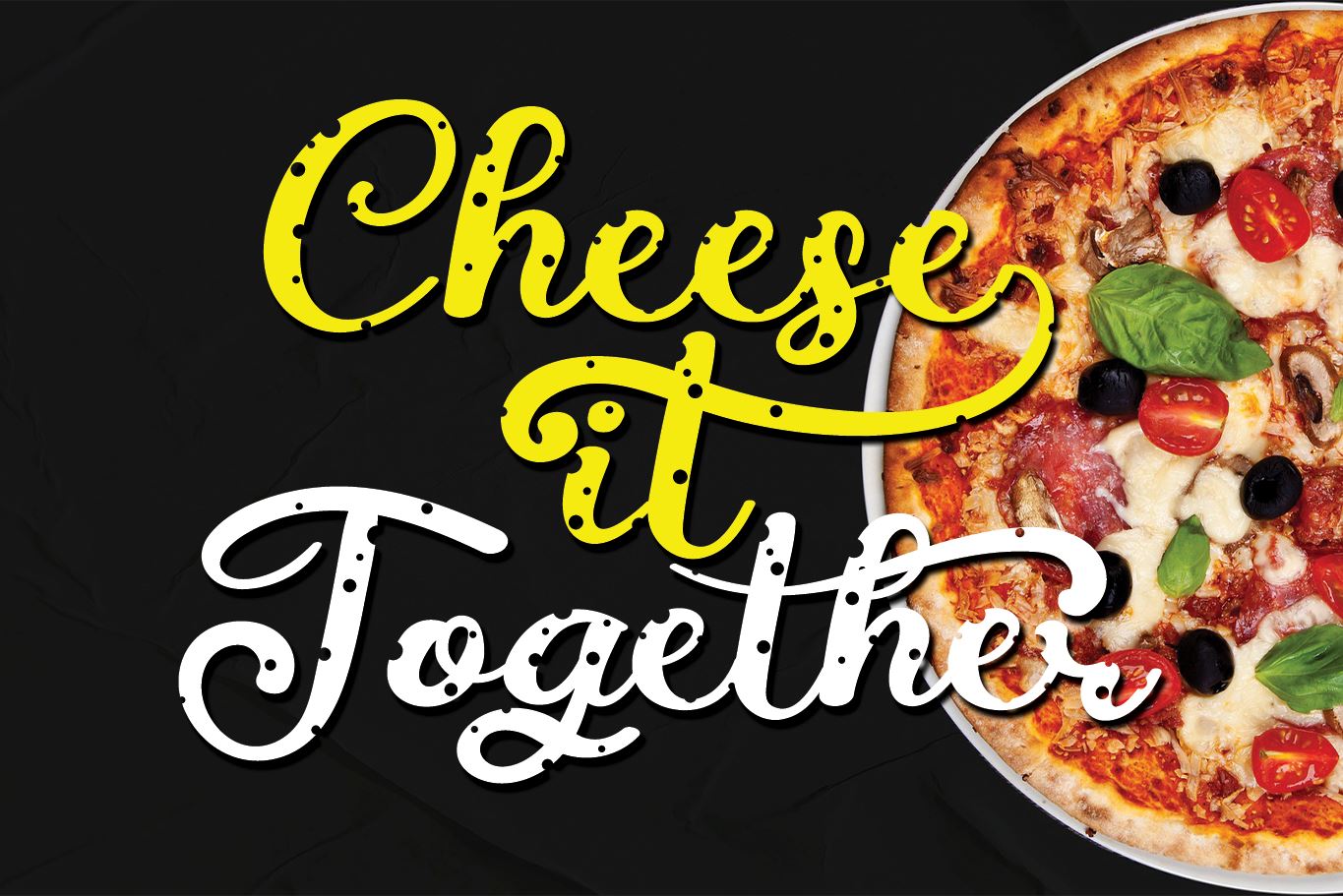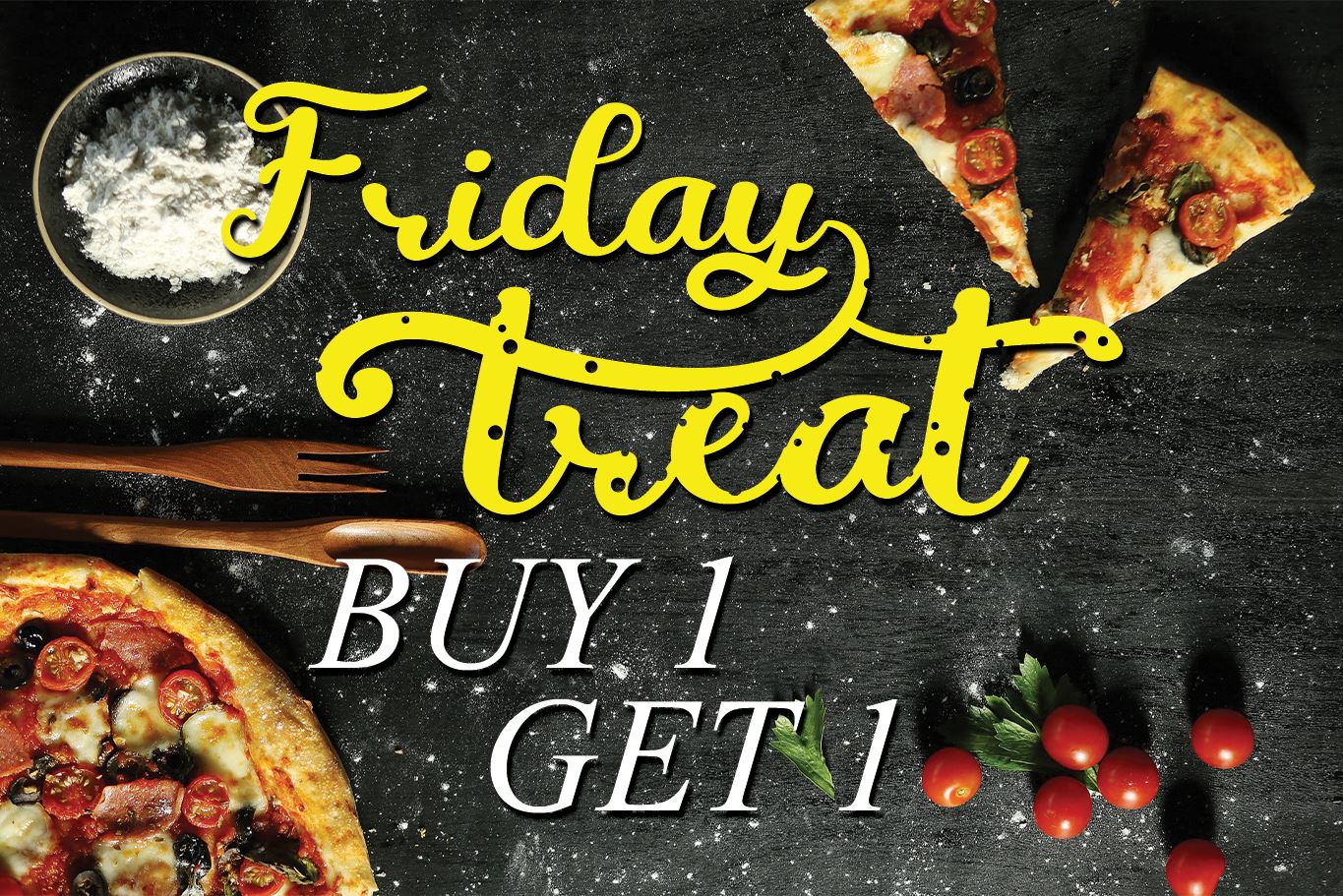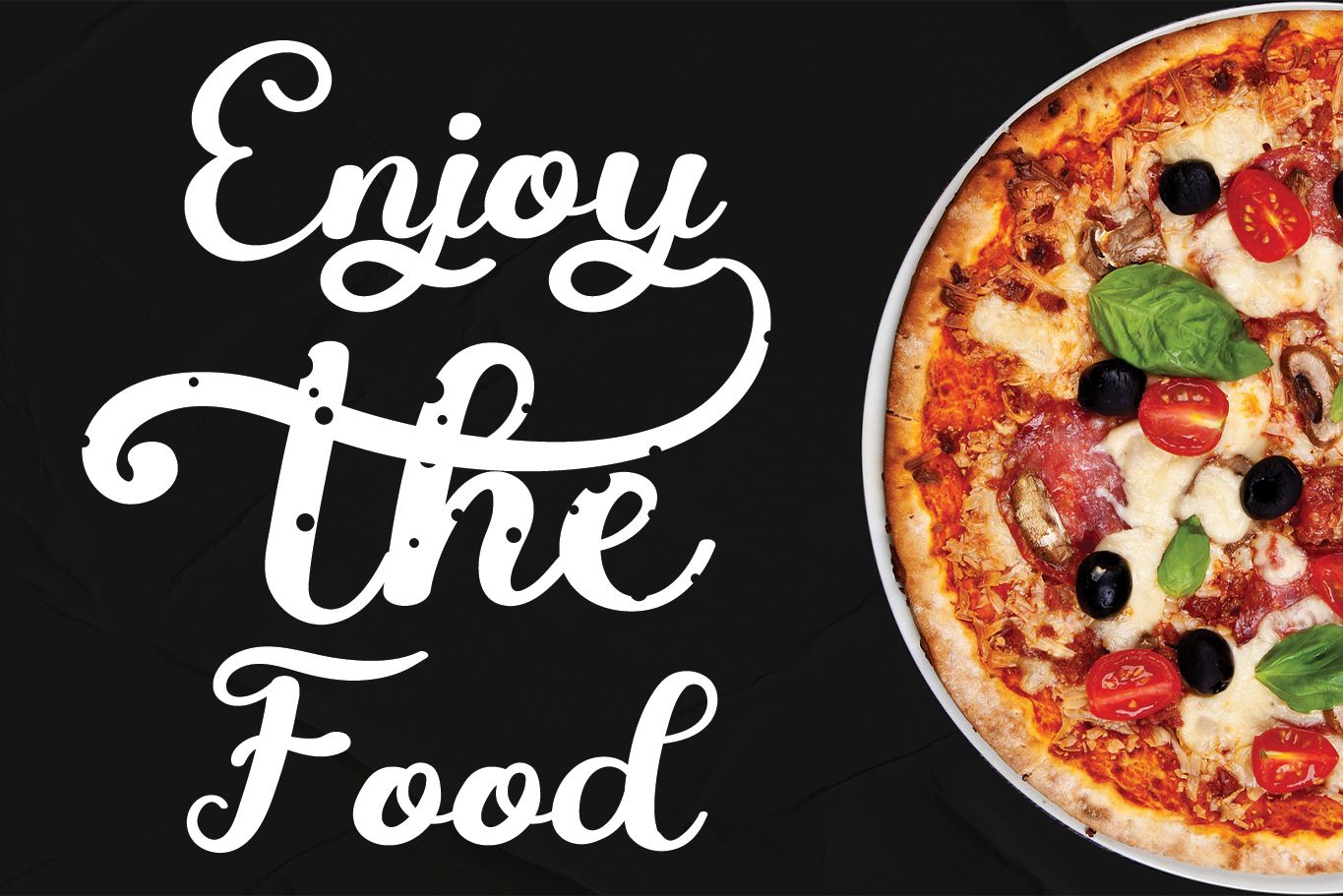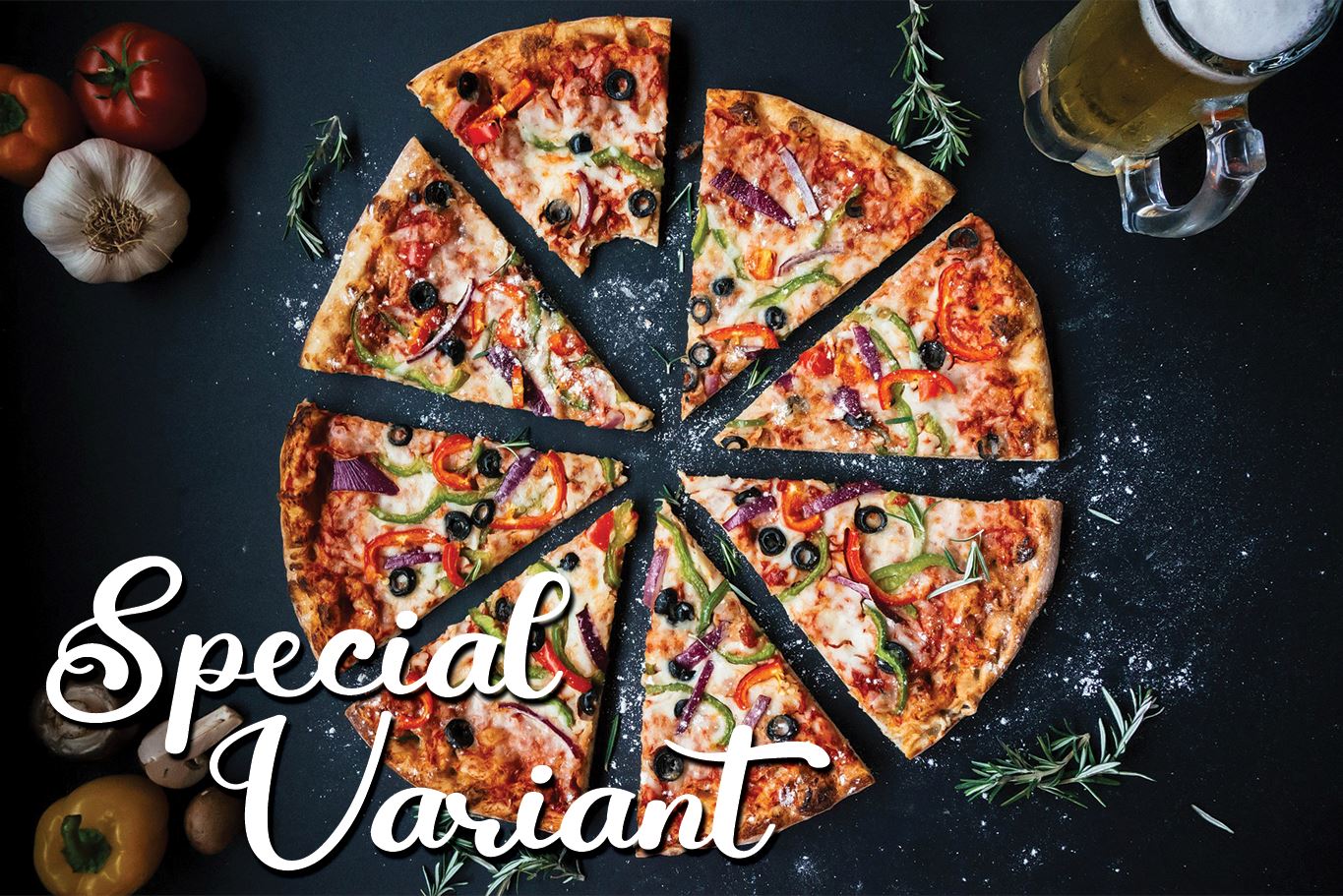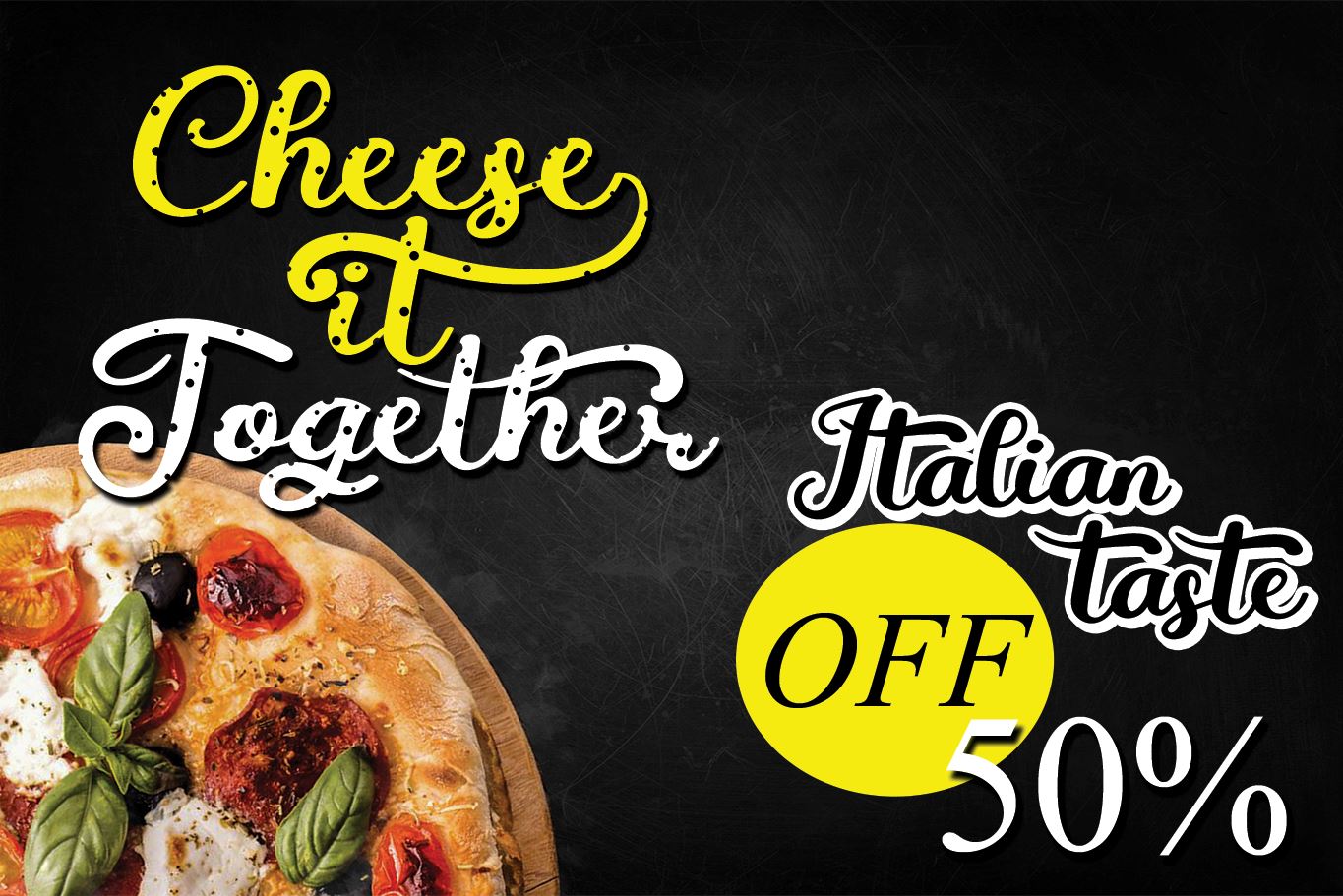
Cheese It Together is a chic, refined script font that emanates sophistication and elegance. Its stylish alternates and ligatures make this font the perfect match for any project.